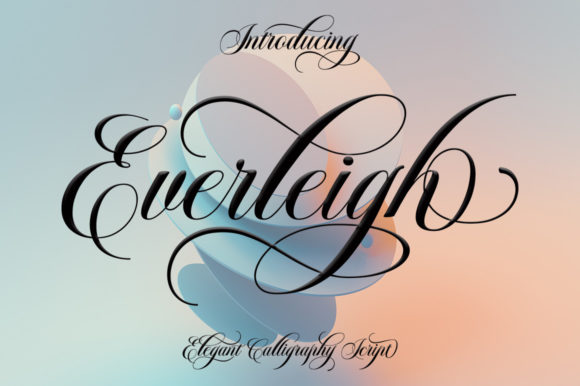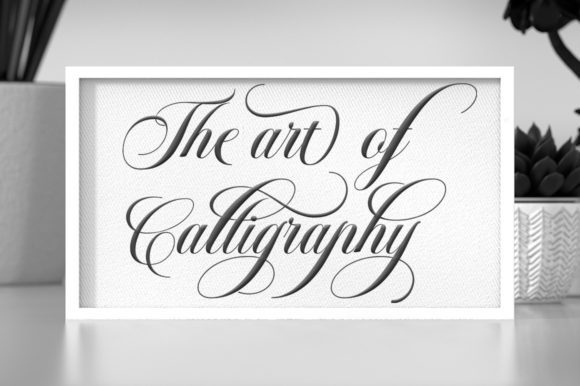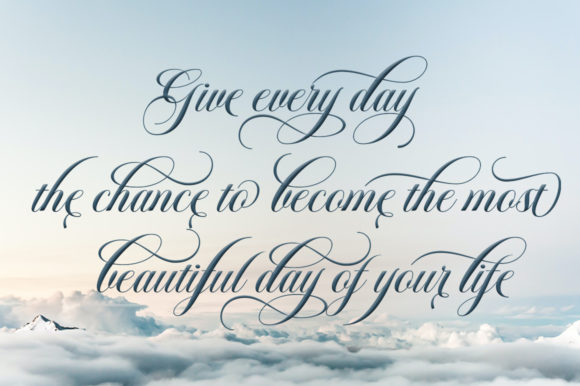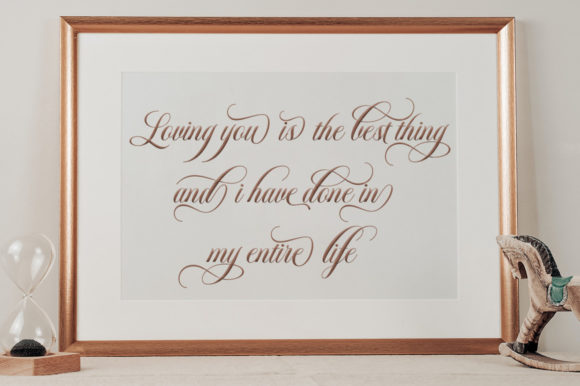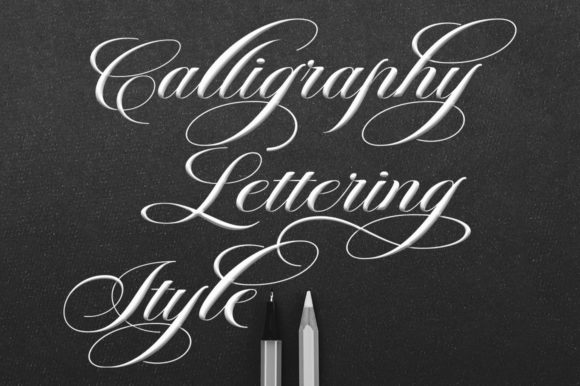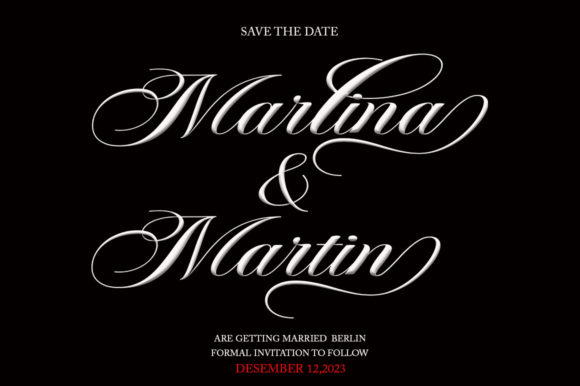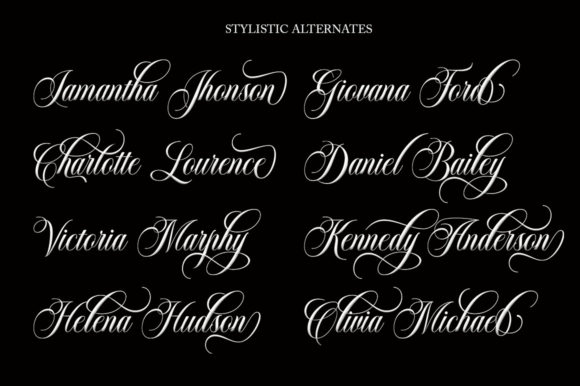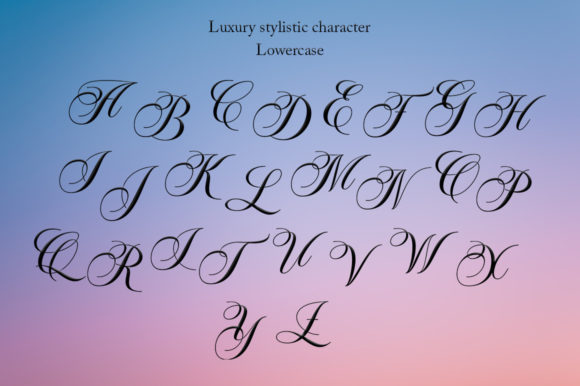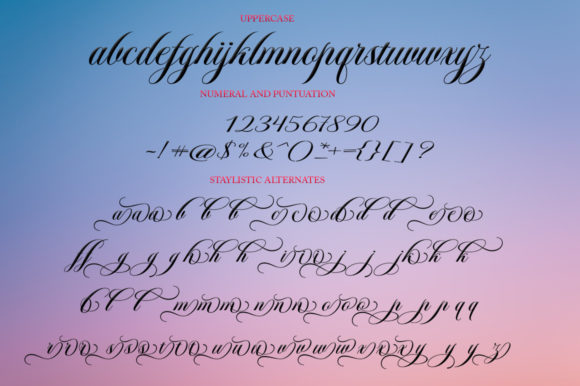
Everleigh Font
About Everleigh Font
Everleigh stands out as an elegant script font with a contemporary atmosphere and impeccable form, drawing inspiration from timeless classic calligraphy. Balancing a refined thickness, this font strikes a perfect harmony, offering a varied and balanced design that aims to enhance the beauty of your creative projects. Notably, Everleigh is PUA encoded, granting easy access to all its glyphs and swashes for enhanced customization.
The contemporary elegance of Everleigh makes it a versatile choice for a wide range of applications. Whether employed in branding, invitations, posters, or any other design project, this font exudes sophistication and style.
The balanced and varied design of Everleigh ensures that it remains visually pleasing and adaptable to different contexts. Its not-too-thin and not-too-thick strokes add a sense of refinement to your text, making it suitable for projects that demand a touch of timeless charm.
In branding, Everleigh brings an elegant and sophisticated aesthetic, creating a memorable and distinctive visual identity for your brand. In invitations, the font contributes to a refined and stylish presentation, setting the tone for special occasions.
Posters benefit from Everleigh’s contemporary calligraphy, adding a touch of class to headline text or important information. The font’s versatility extends to various design elements, making it suitable for any project where elegance is a key factor.
In summary, Everleigh is more than just a font; it’s an elegant script design tool that elevates the beauty of your projects. With its contemporary atmosphere, impeccable form, and PUA encoding, Everleigh offers a seamless and customizable experience for designers seeking sophistication and timeless charm in their creative endeavors.